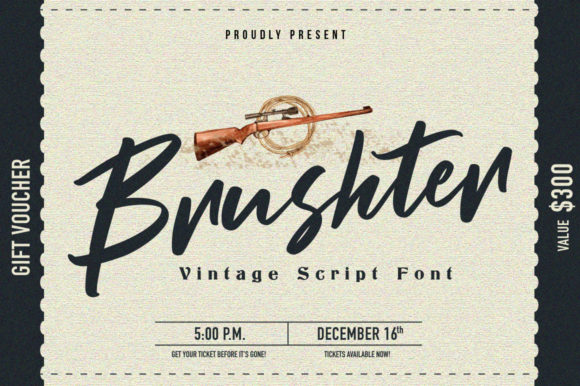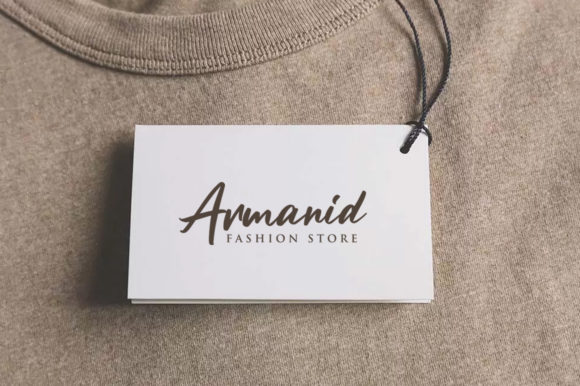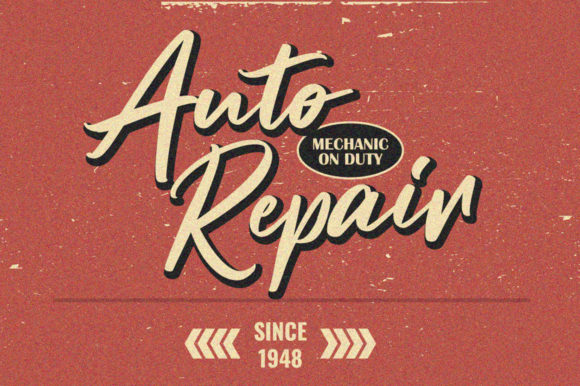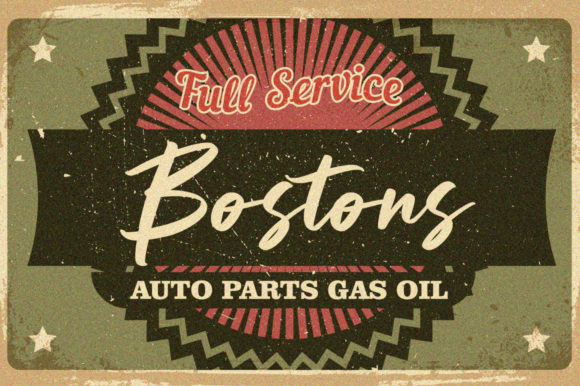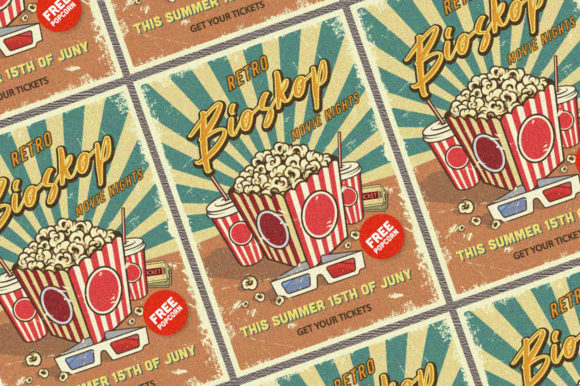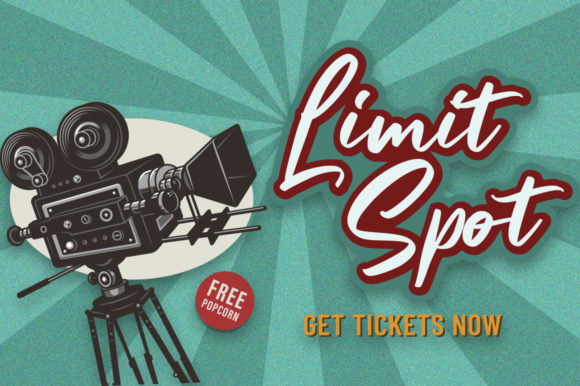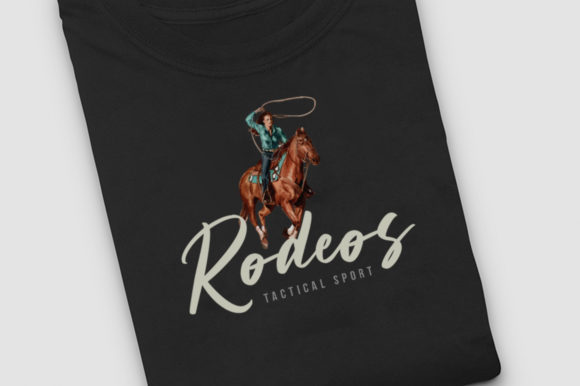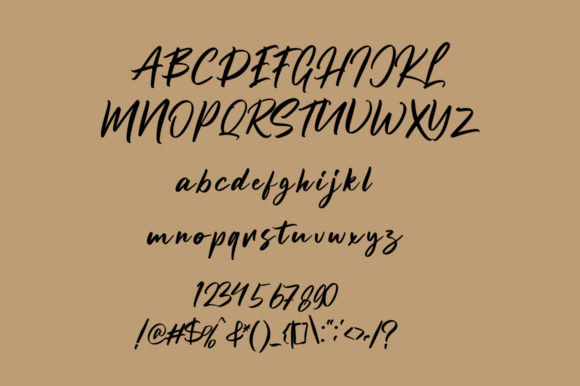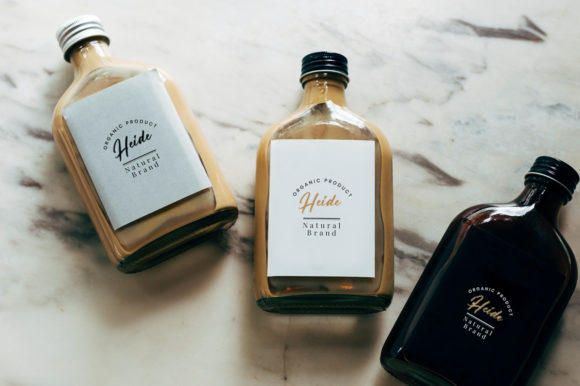
Brushter Font
About Brushter Font
Brushter is a retro styled handwritten font, relaxed and timeless. Employ it to each of your creative designs and notice how they come alive!